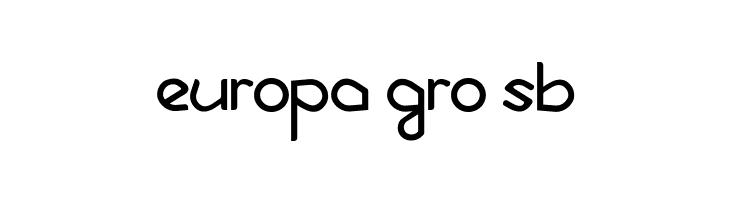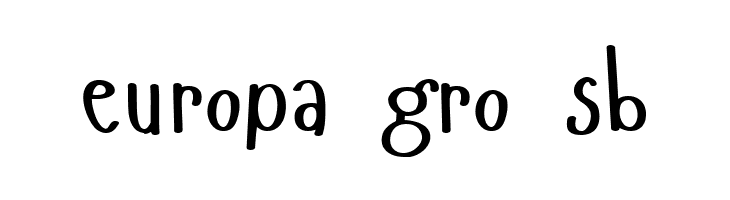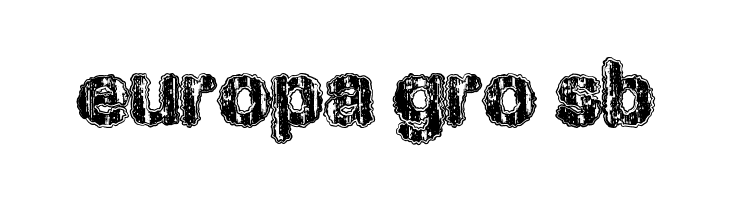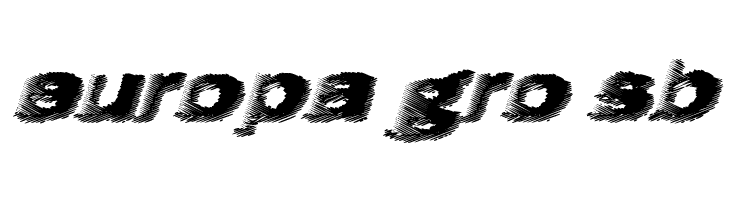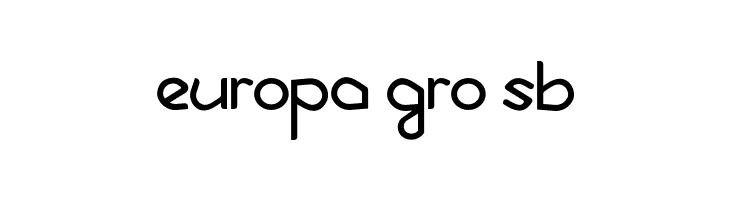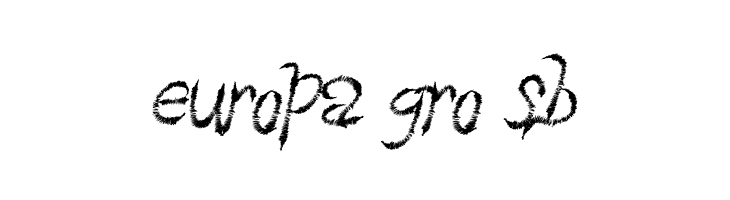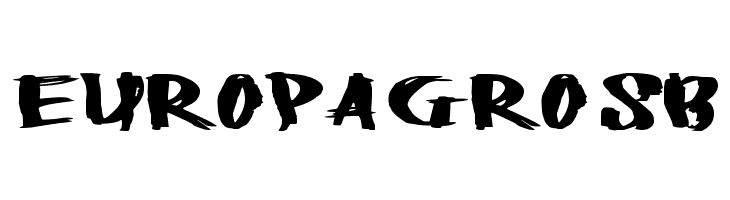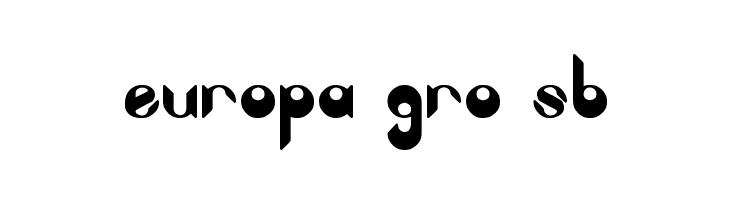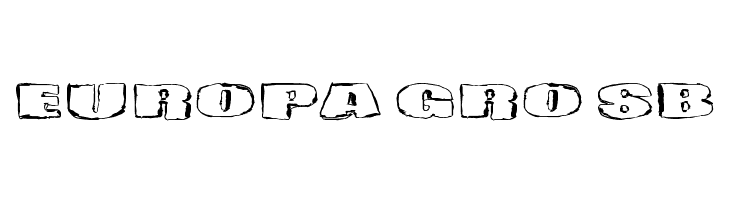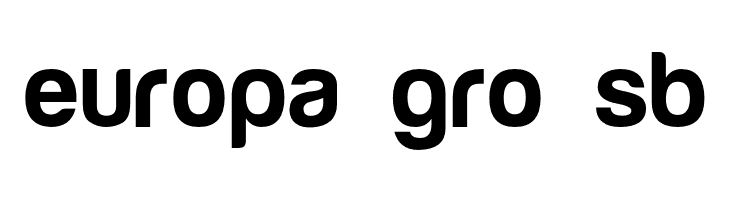
• Hangen henki
A bold, playful font with thick outlines and a cartoonish style.
• Hanging Letters
• Hangover
A bold, hand-drawn font with a playful, textured design.
• Hangover 2
A bold, distressed font with a rugged, vintage aesthetic.
• Hangover 2
A bold, distressed font with a rugged, vintage appearance.
• Hangyaboly
( Fonts by Roland Huse - rolandhuse.com )
• hankenround-Regular
A modern, rounded font with a clean and approachable design.
• Happy Bomb
( Darrell Flood )
A bold, rounded font with a modern and playful style.
• Happy Bomb Italic
( Darrell Flood )
A bold, italic font with rounded characters and a modern, energetic style.
• Happy Potatoes
( Fonts by Darrell Flood )
A playful, potato-themed decorative font with a whimsical, hand-drawn style.
• Harabara Mais Demo
( André Harabara - harabara.carbonmade.com/ )
A modern sans-serif font with smooth, rounded edges and uniform stroke width.
• Harpers
An intricate, decorative font with mystical and fantasy-inspired symbols.
• HarryPiel
An ornate, decorative font with intricate flourishes and a vintage style.
• HarryPiel
An ornate and decorative font with intricate flourishes.
• Hatch
A bold, textured font with a dynamic hatch pattern and slanted characters.
• Haudankorva
A bold, distressed font with a rugged, hand-drawn appearance.
• Havana
( Fonts by antoniorodriguesjr.com )
A modern, geometric font with clean, rounded edges and a condensed style.
• Havana Italic
( Fonts by antoniorodriguesjr.com )
A sleek, modern italic font with elongated, narrow characters and high contrast.